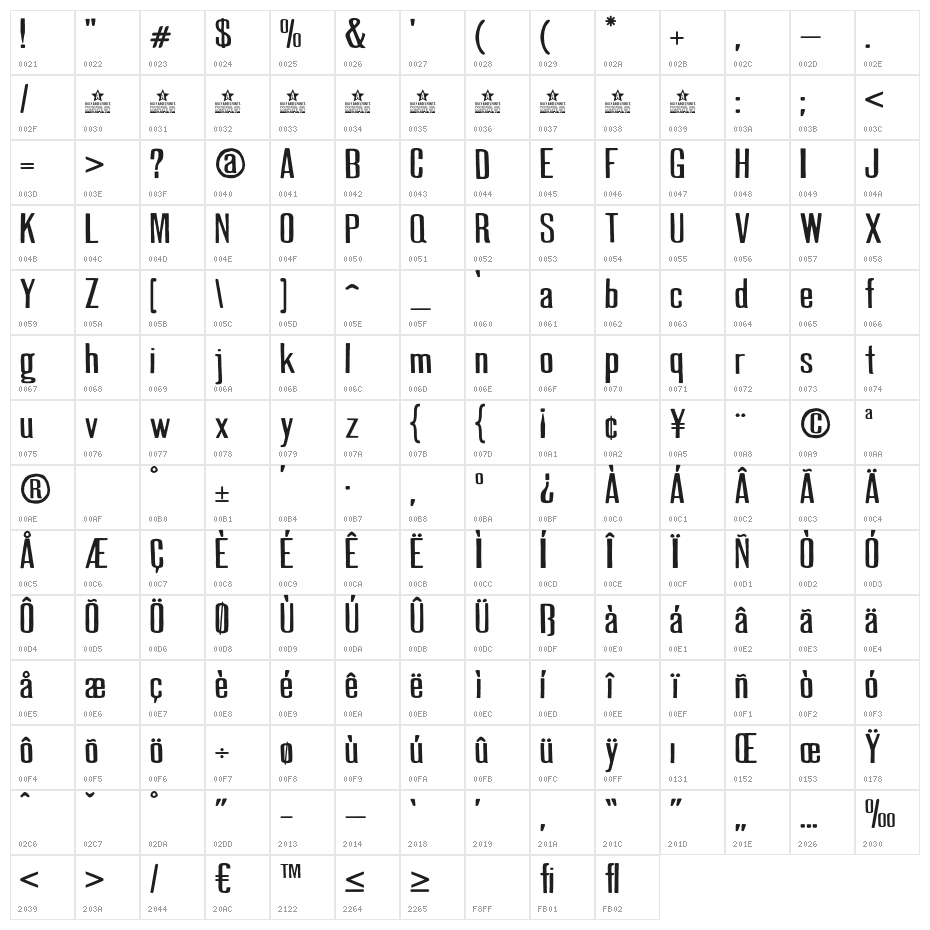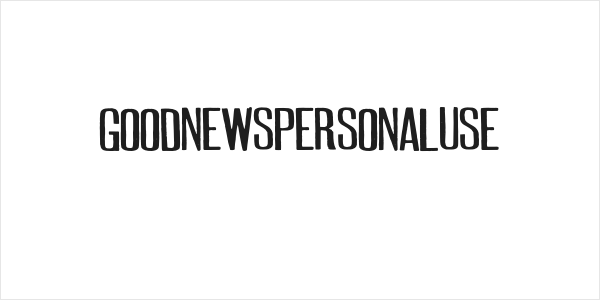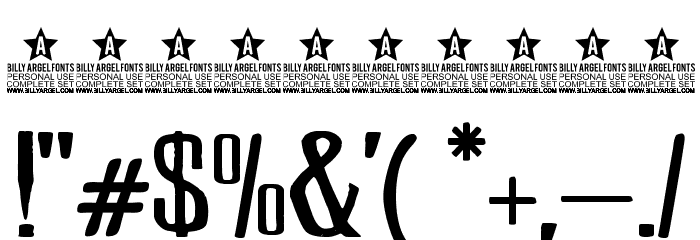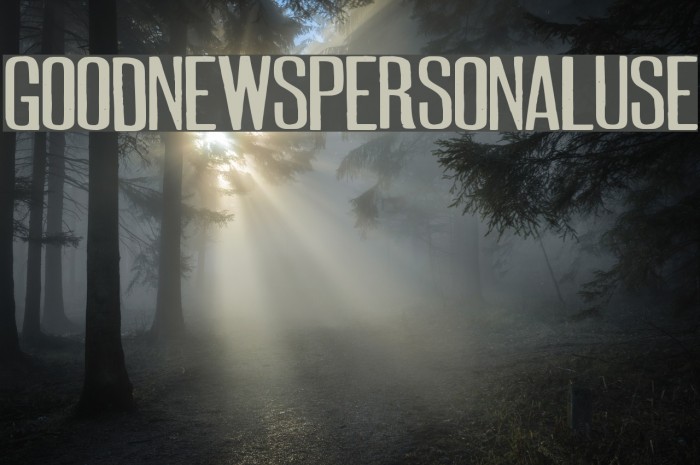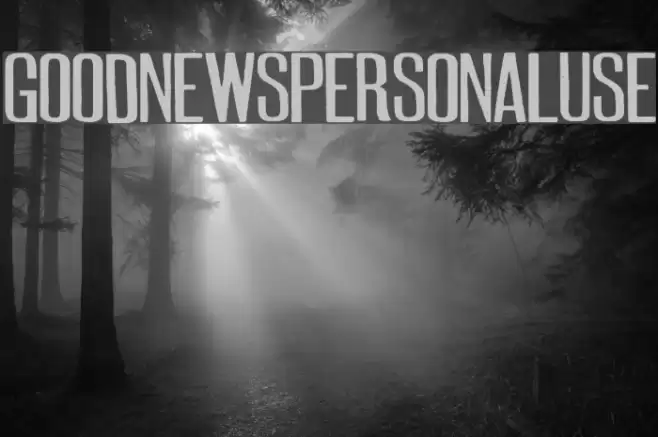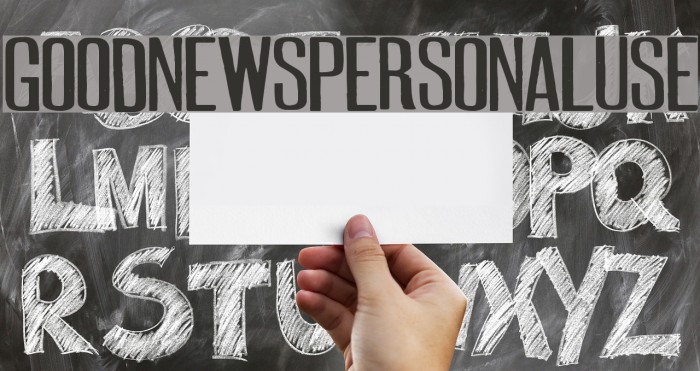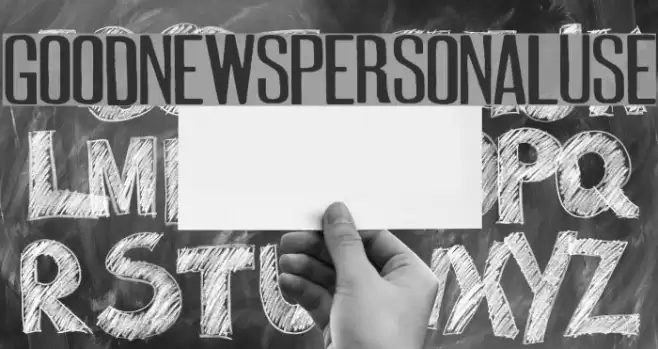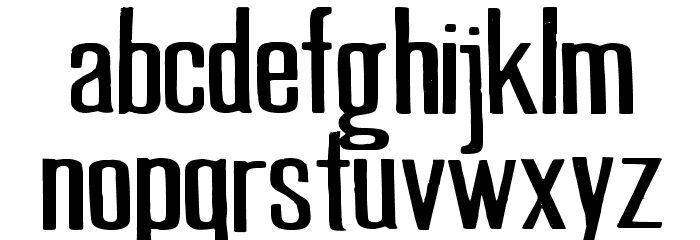
GOODNEWSPERSONALUSE Font
This font features a bold and condensed style with a distinctive, slightly distressed appearance. The uppercase letters are tall and narrow, giving a strong vertical emphasis, while the lowercase letters maintain a consistent height and width, creating a harmonious balance. The font includes a full set of uppercase and lowercase letters, numbers, and a variety of special characters. The strokes are thick and uniform, contributing to a bold and impactful look. The slightly rough edges add a vintage and handcrafted feel, making it suitable for projects that require a touch of nostalgia or a rustic aesthetic.
| Proposed Projects | Ideal for posters, headlines, logos, and branding projects that require a bold and vintage look. |